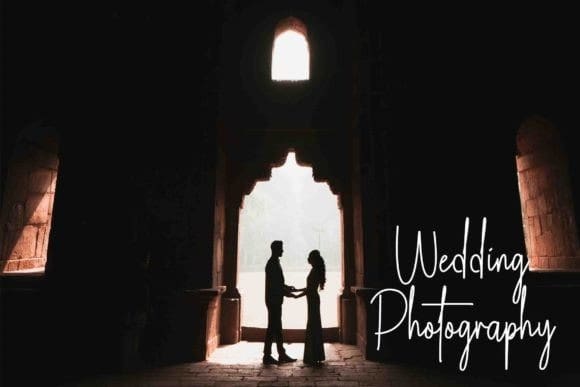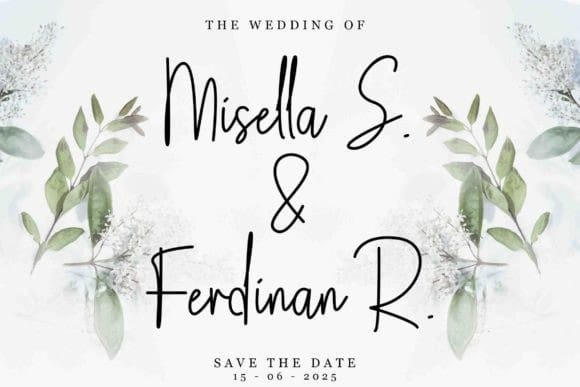
Catania Handwritten Font
Catania Handwritten Font is a script-style handwritten font that has beautiful curves. Suitable for logos, greeting cards, business cards, photography watermarks and much more